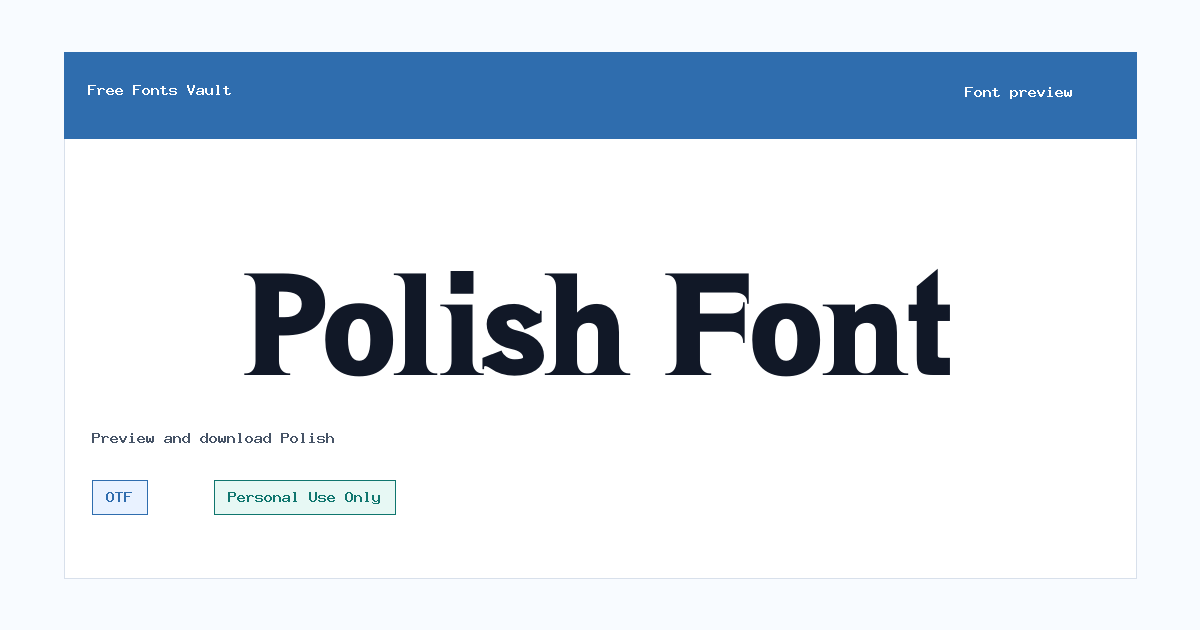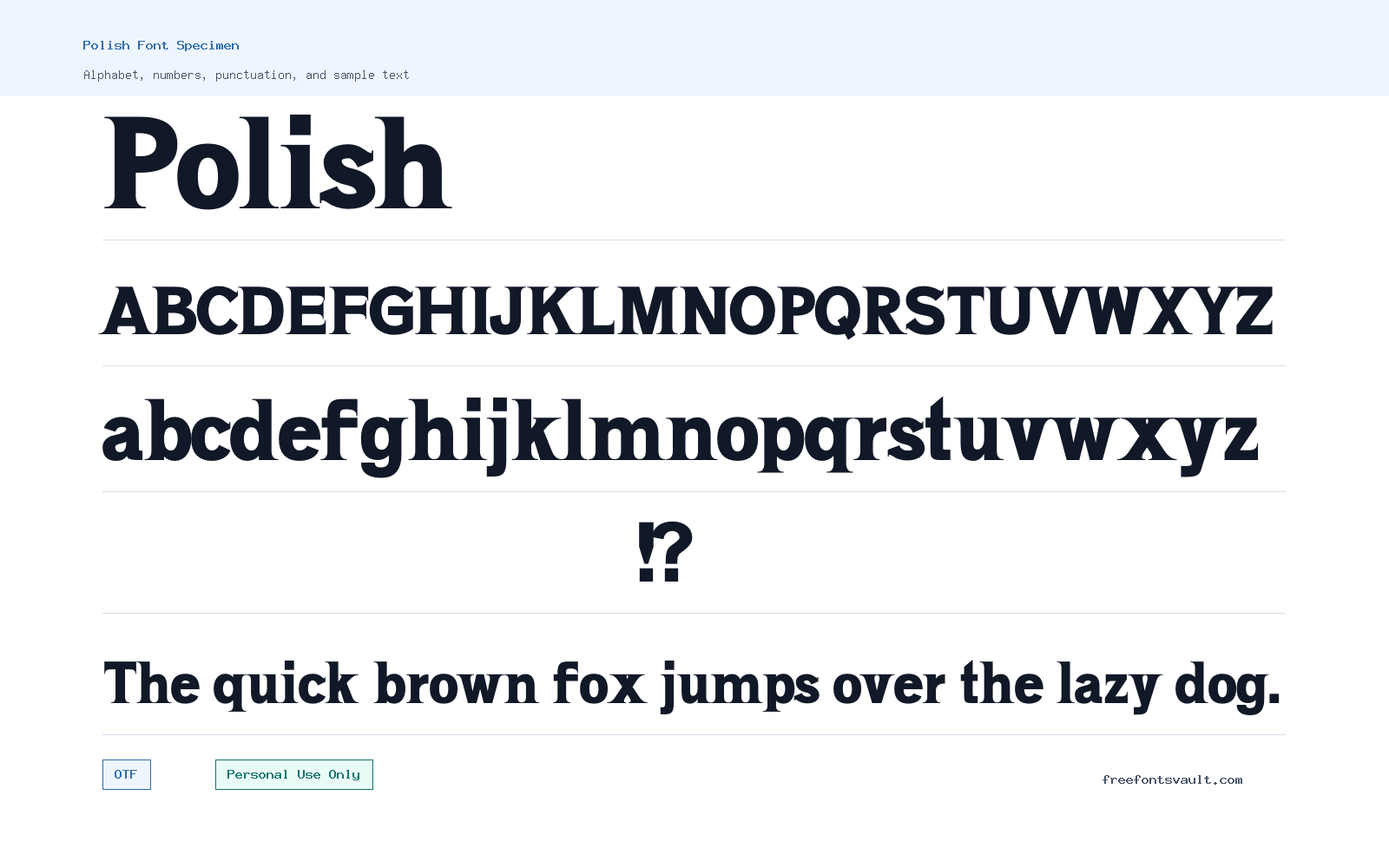
Polish
Polish font.
Polish is a serif font offered in a regular OTF style for personal-use projects. Use the preview tool to test your own words, check spacing, and see whether its serif structure fits the tone of your design before downloading.
About Polish Font
Polish is best approached as a display-friendly serif for short text rather than a font to choose blindly for long reading. Since the available file is a regular 400-weight style, it is useful for testing clean headlines, nameplates, simple quotes, invitations, poster text, and other personal layouts where one steady weight is enough. The serif label suggests a more traditional letterform direction than a plain sans serif, but the exact feel should be judged in the live preview with your own wording.
Before using Polish in a finished design, try it at several sizes. Some serif fonts look crisp in large titles but become harder to read when used in small captions or dense paragraphs. Test uppercase words, mixed-case phrases, numbers, and punctuation if your project needs them. If the preview shows tight spacing, keep the text short or add letter spacing in your design app. For pairing, a simple sans serif is usually the safest companion because it lets the serif title carry the style without making the layout feel crowded.
- Serif font listing suited for previewing short personal-use text
- Personal posters, invitations, cards, and quote graphics
- Headlines, display text, simple name treatments, and social graphics